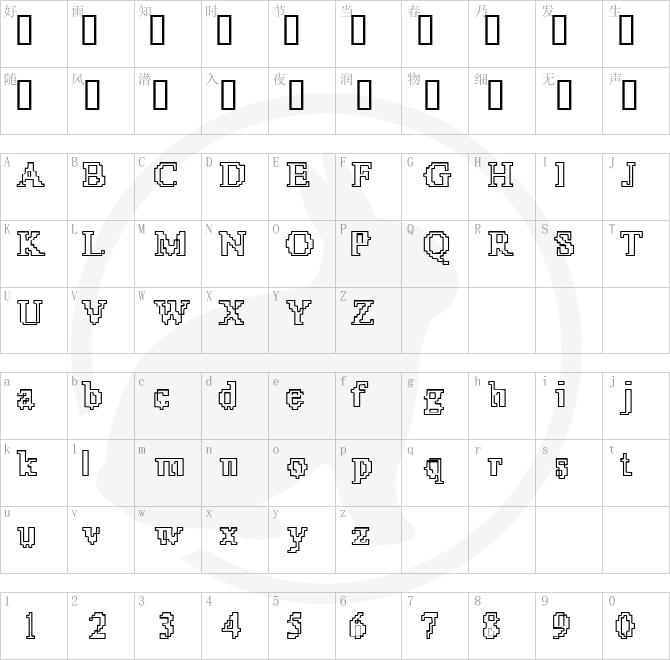
- Font Name:X51 Outline
X51-Outline.ttf is a very beautiful artistic font, X51-Outline.ttf is widely used in the design and printing of various books and pictures,X51-Outline.ttf has a strong visual impact,X51-Outline.ttf is a commonly used font in newspapers, magazines and books, and is used in posters, e-commerce Poster design, store design, logo design, font design and other fields.X51-Outline.